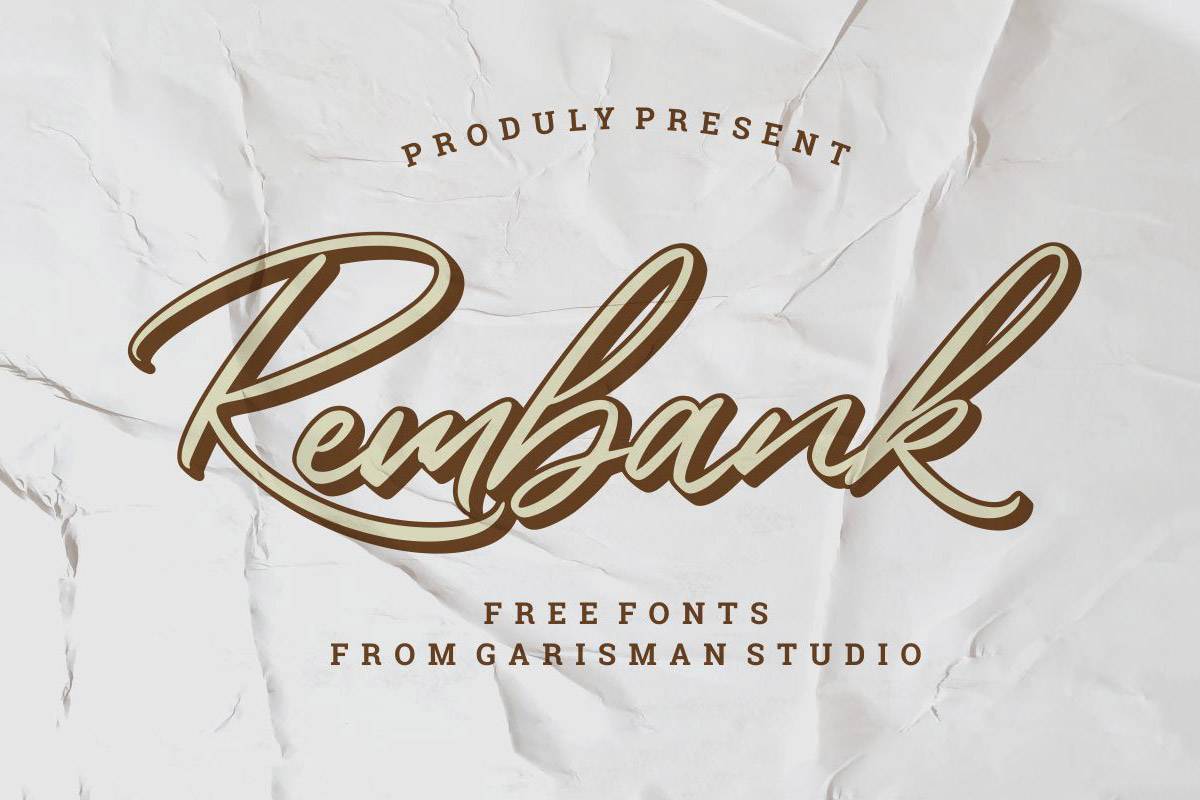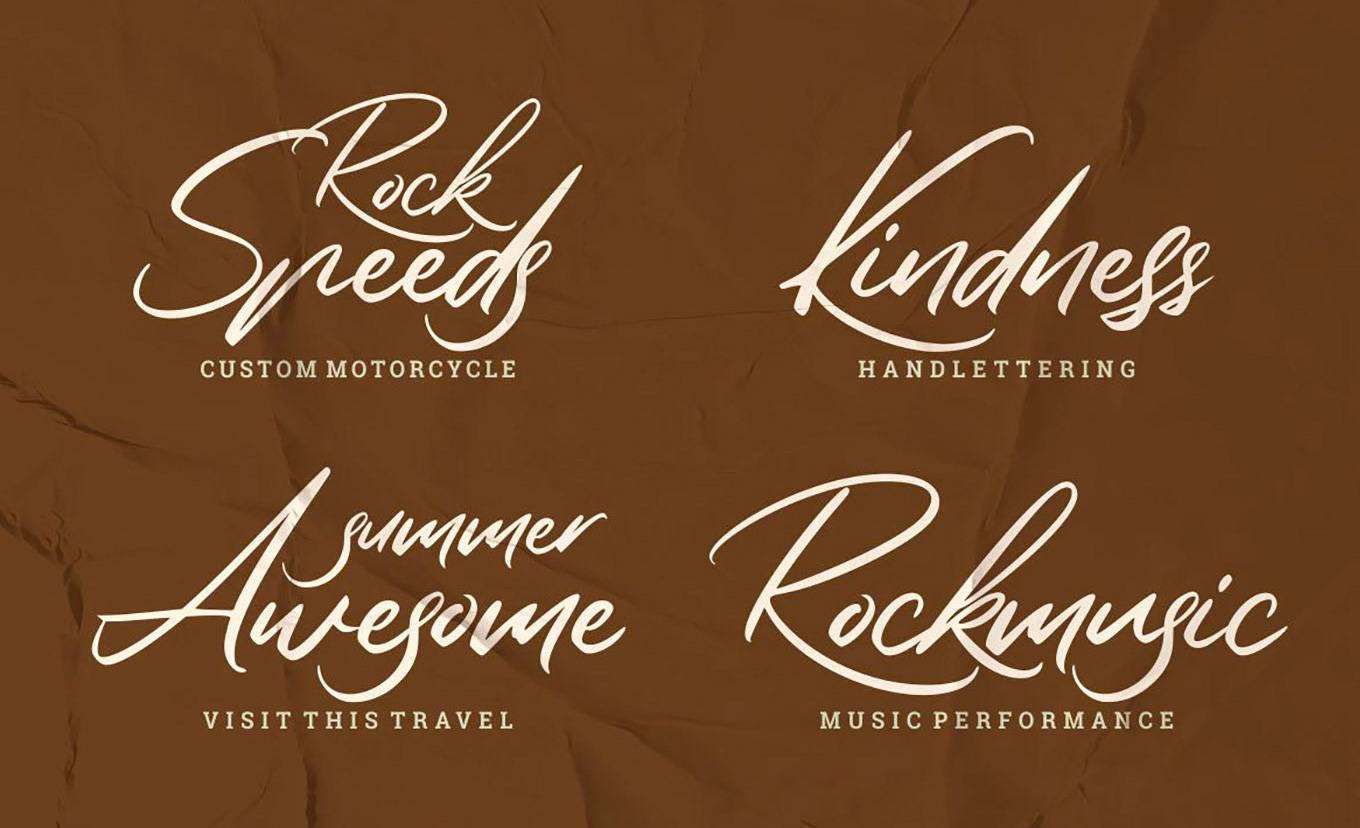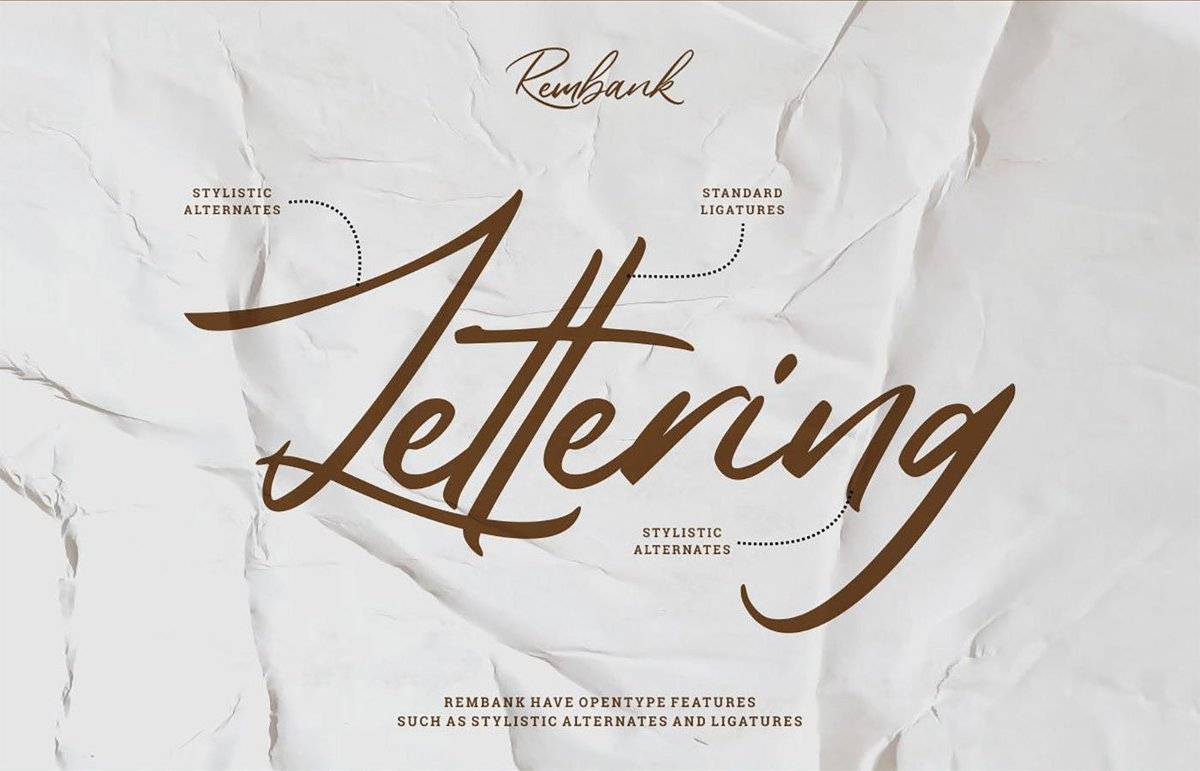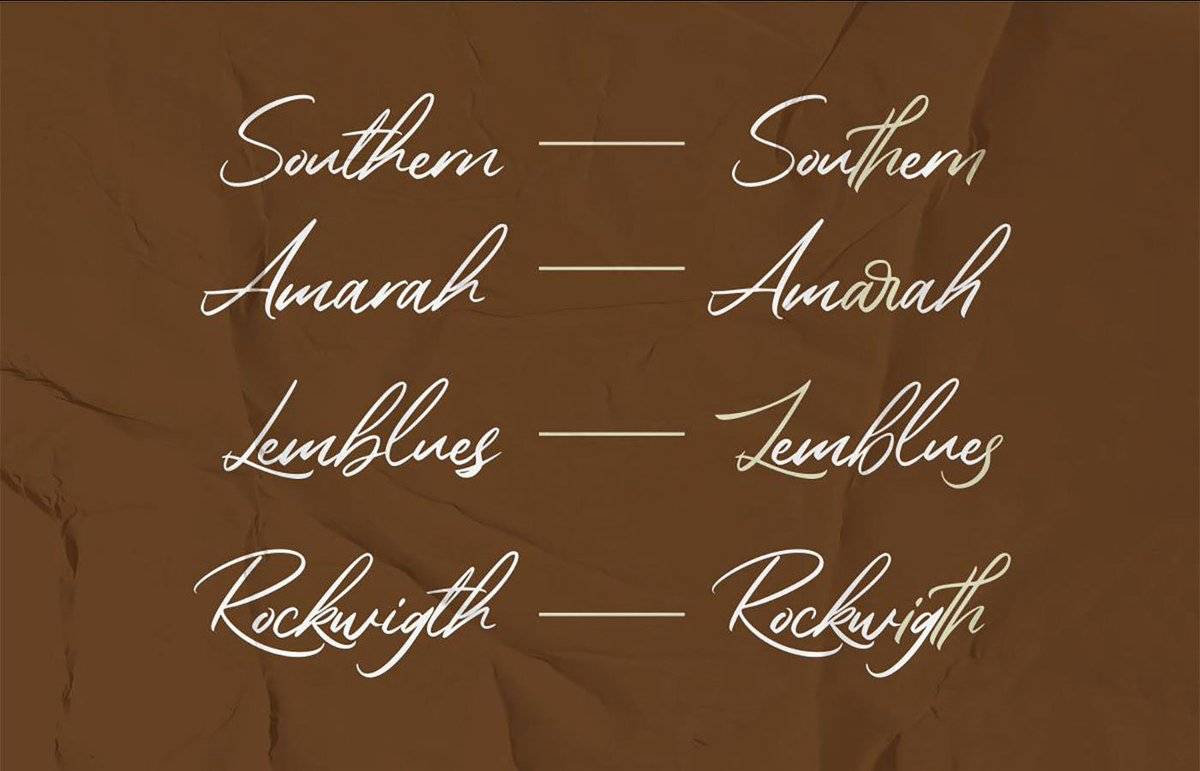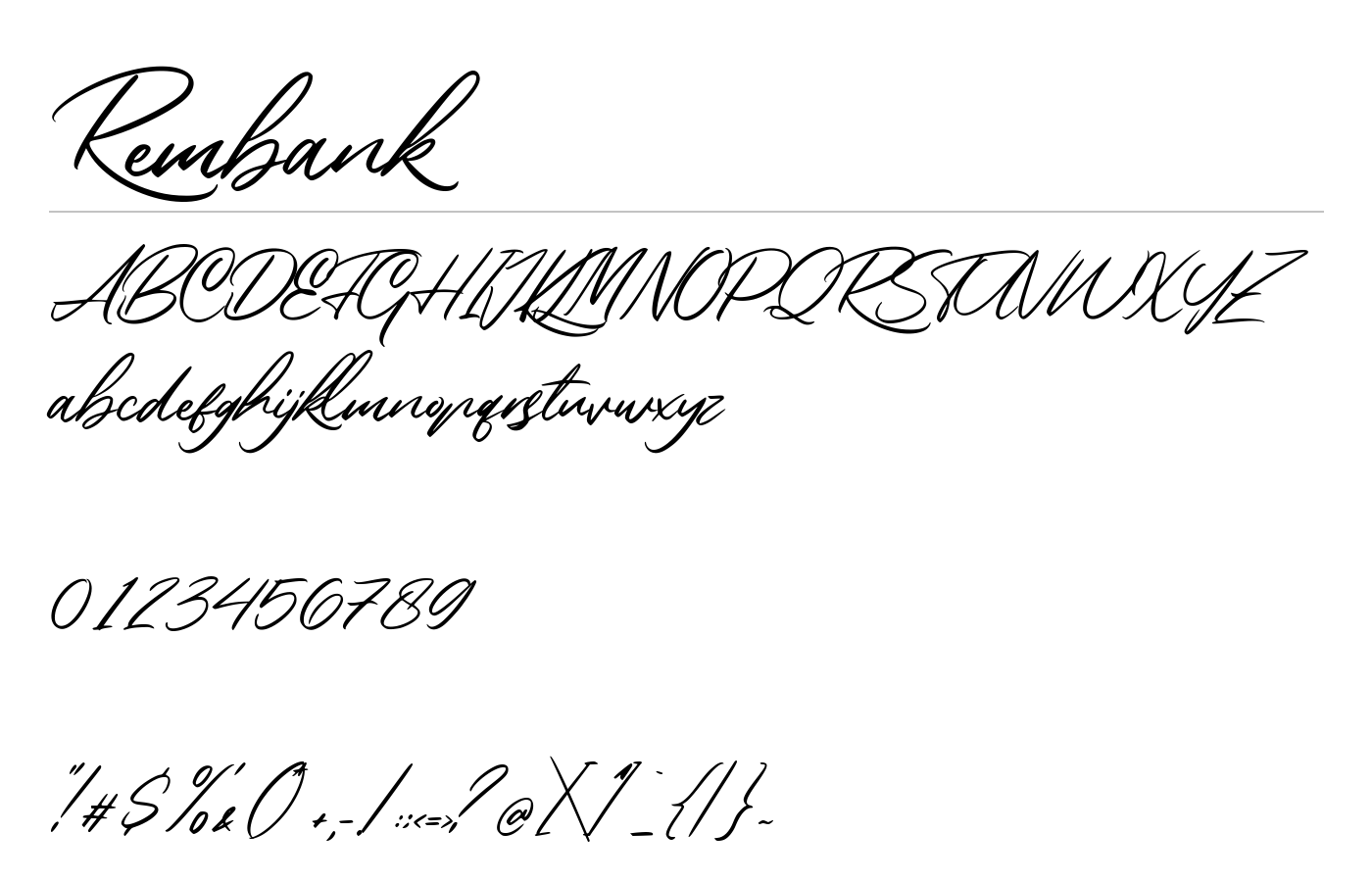
Rembank is a graceful, flowing script font characterized by its elegant, thin strokes and smooth, calligraphic style. Its slender letterforms and sophisticated curves convey a refined, artistic vibe, making it ideal for creative branding, invitations, and fashion-related designs where a personal, stylish touch is desired. This font shines in applications that benefit from its delicate, handwritten charm, adding a sense of elegance and individuality.
Rembank
About Rembank
| Font family | Rembank |
| Release date | 2019-07-27 |